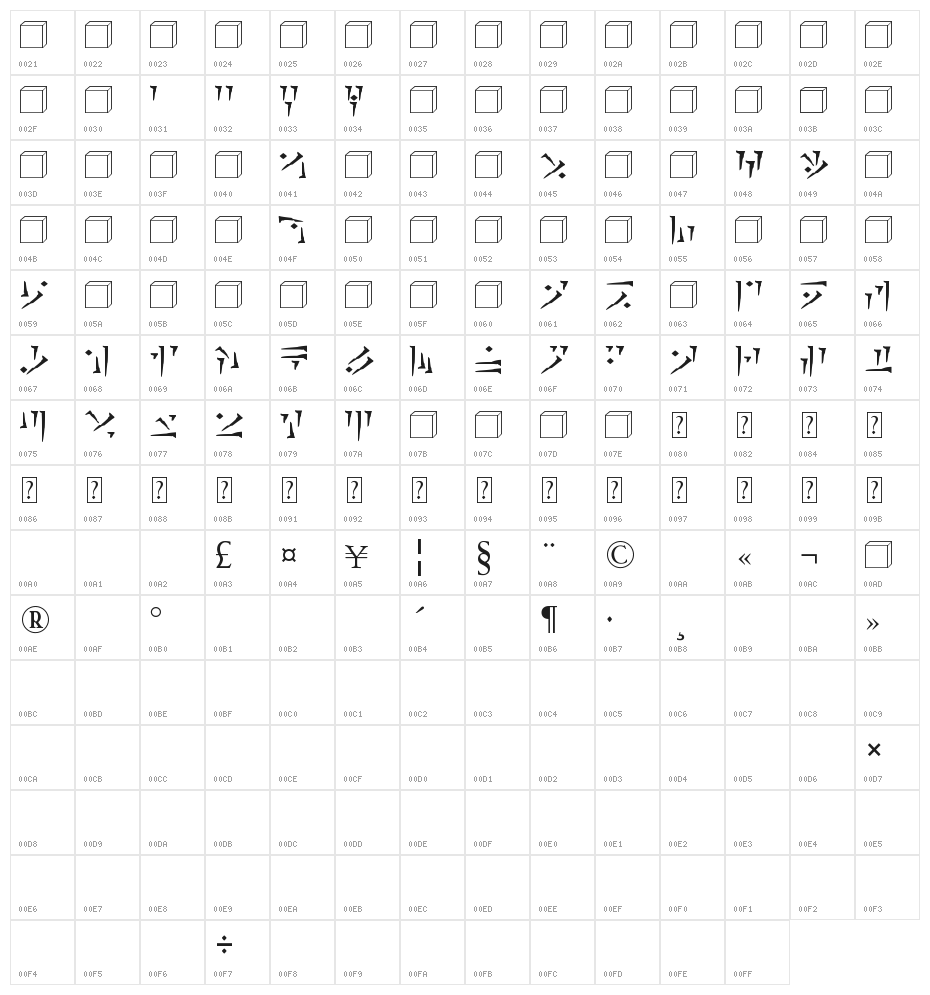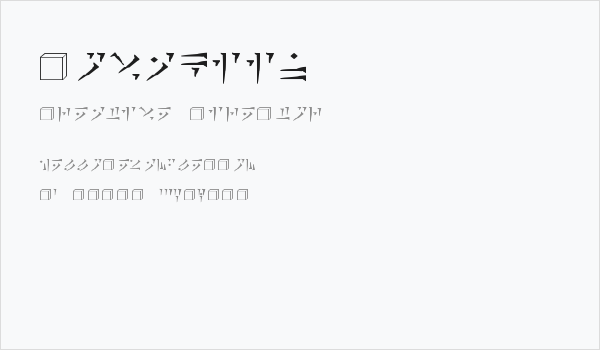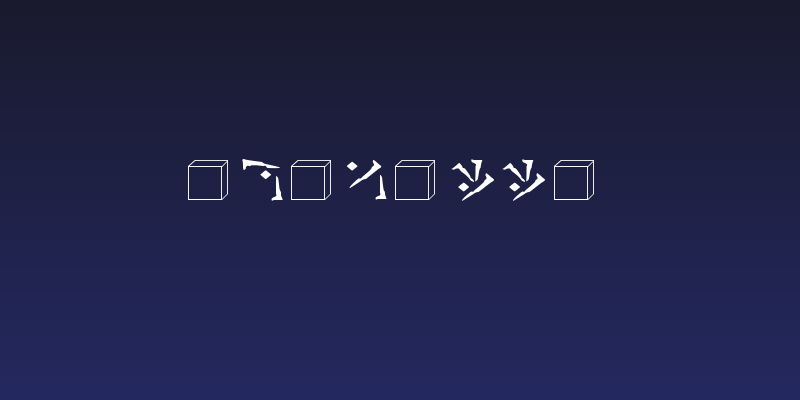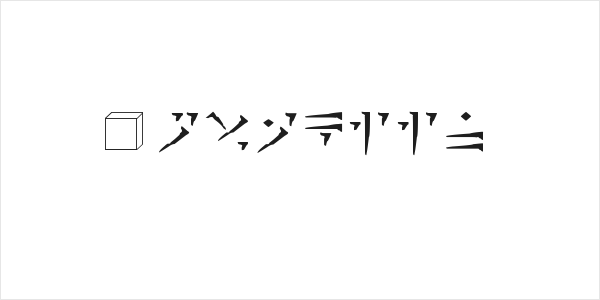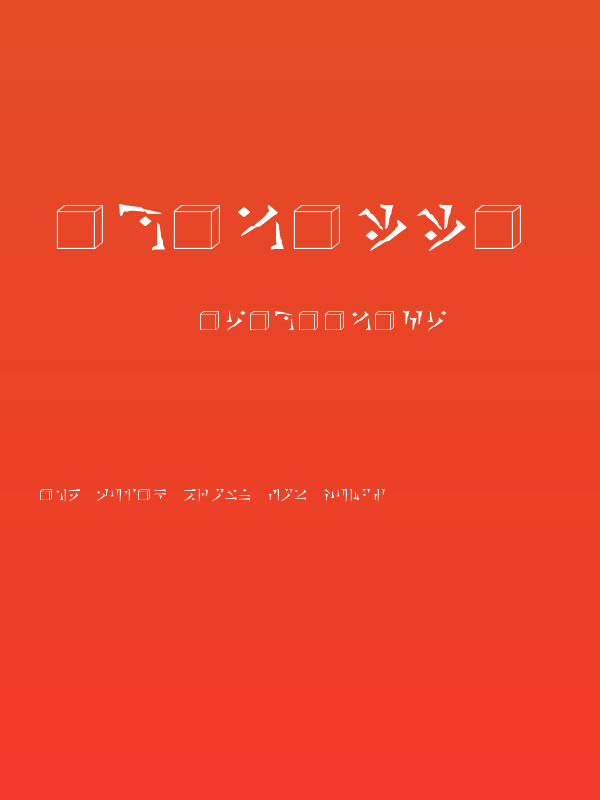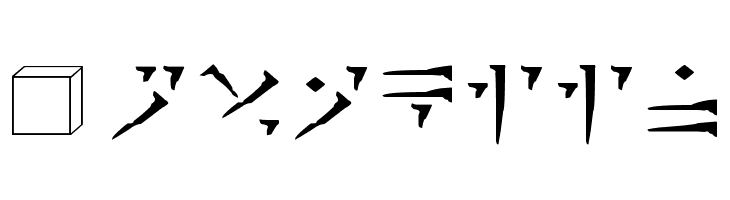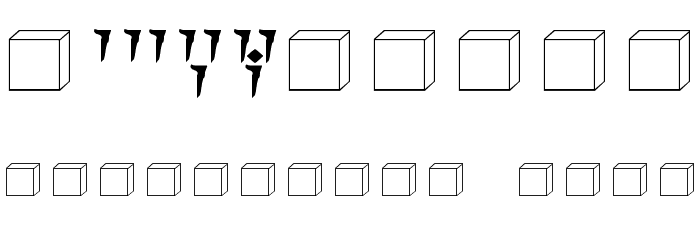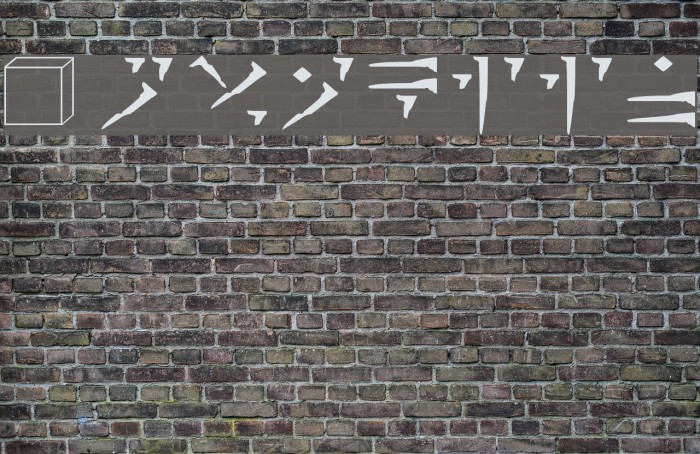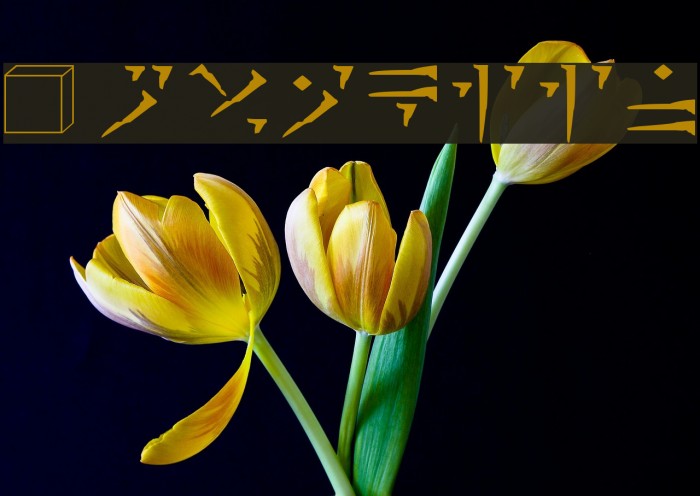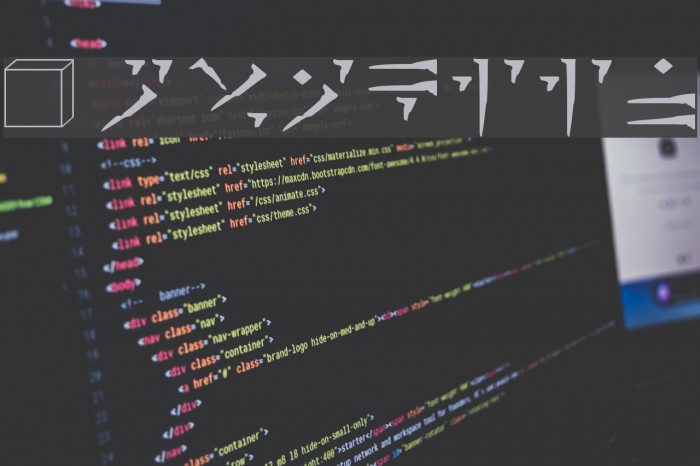
Dovakiin Font
Dovakiin Description
This font features a highly stylized and angular design reminiscent of ancient runic or fantasy scripts. Each character is composed of sharp, geometric lines that create a sense of mystery and intrigue. The font's unique style is characterized by its bold, striking appearance, making it ideal for projects that require a touch of the fantastical or otherworldly. The characters are evenly spaced, with a consistent weight that adds to the overall cohesion of the design. This font is perfect for creating eye-catching titles, logos, or decorative elements that need to stand out.
| Overall Style | Fantasy, Mystical, Ancient |
| Use Case | Headlines, Logos, Decorative elements |
| Proposed Projects | Ideal for fantasy-themed projects, game titles, book covers, or any design requiring a mystical or ancient feel. |